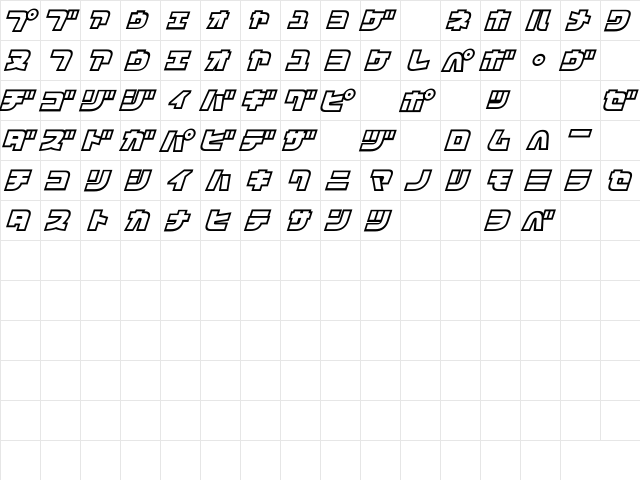
D3 Cosmism Katakana Oblique Regular
Design Context for D3 Cosmism Katakana Oblique Typeface
D3 Cosmism Katakana Oblique is a composed and adaptable typeface that performs quietly and consistently across a wide range of design contexts. The dynamic lean of this cut emphasises speed and emphasis in any layout.
Pro Tip: Try D3 Cosmism Katakana Oblique for annotation and caption copy alongside an upright companion — the contrast in angle creates a dynamic but ordered typographic system.